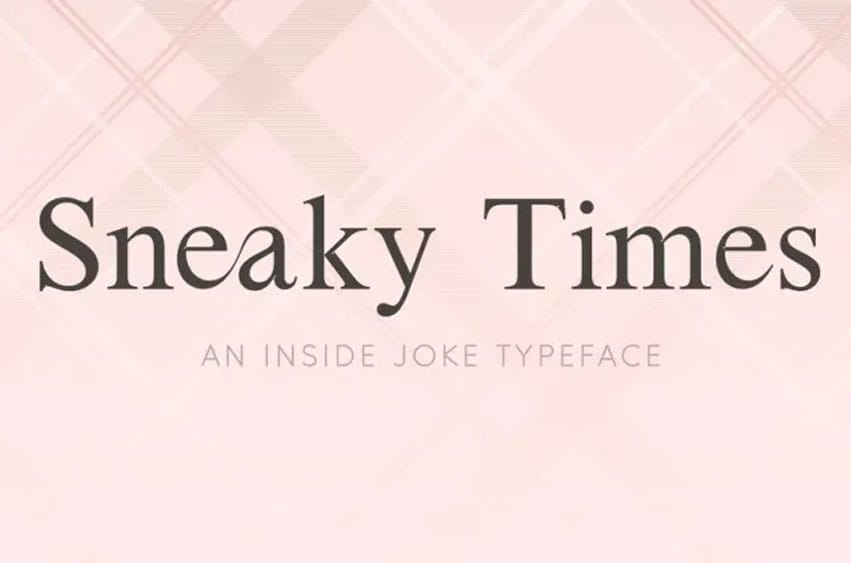
Sneaky Times Font The text font used here is Sneaky Times; it is an inside joke font where the author has redesigned Times New Roman by Stanley Morison with a hidden mascot. The small hand doing a circle is an icon of a very famous bluffing game. Developed in the 80s by a young student in elementary school as a means to hurt his peers,
It was brought to light by a popular show called Malcolm in the Middle and from there it grew on to become an internet fad. So this Circle Game can happen anywhere, even in font, and here it is!